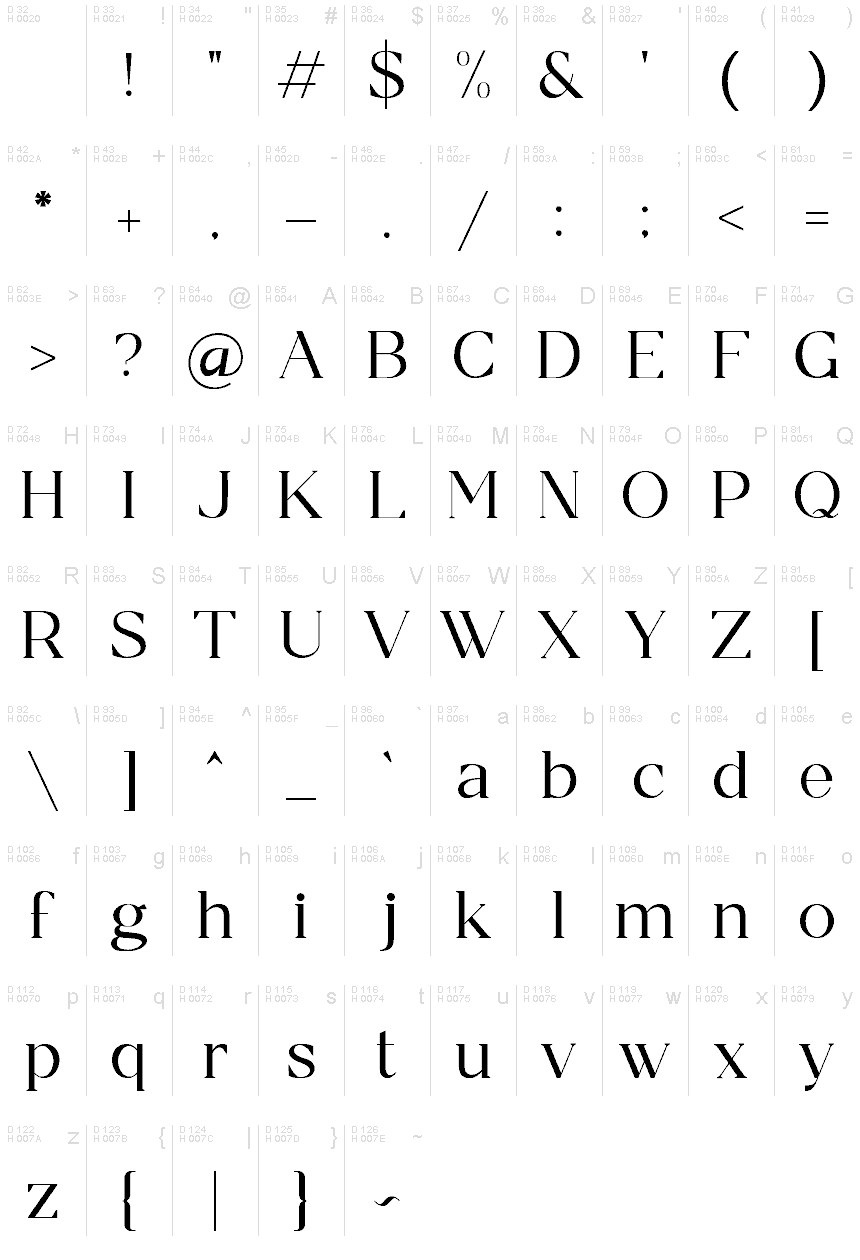
Aeriast
Aeriast font by Ahmad Riqi is a traditional serif font that exudes elegance and sophistication. It emphasizes sharpness with slightly curled strokes which give it an ornate style with distinct details. With its refined presentation, Aeriast is comparable to the works seen in well-known literary books with a more sophisticated all-around look.
Create classic magazine covers, online newspapers, book titles, invitations, social media posts and covers, brochures where headings stand out effortlessly or large branding projects. Aeriast can also be implemented in advertisements and announcements that require matching elegant visuals.